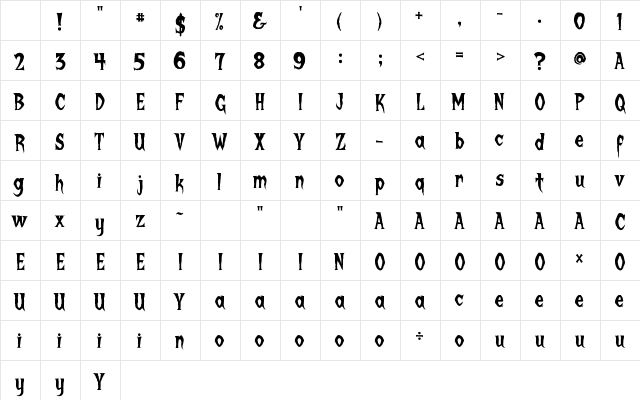
Complete Haunted Hill Regular glyph index. Displaying only characters natively supported by Haunted Hill Regular font.
Haunted Hill Regular is a composed and adaptable typeface that performs quietly and consistently across a wide range of design contexts.